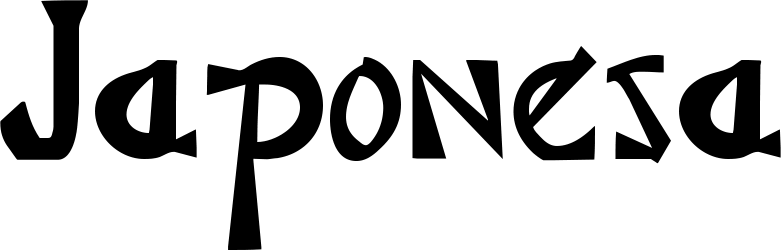
Japonesa Font
Japonesa is a Japanese font with a ninja and samurai style that can splash a little excitement on your texts. You can get a crooked Asian vibe from it and use it for any decorative headline or titles, Japanese novels and books, sports flyers and banners, action and retro Asian movies, and comic books.